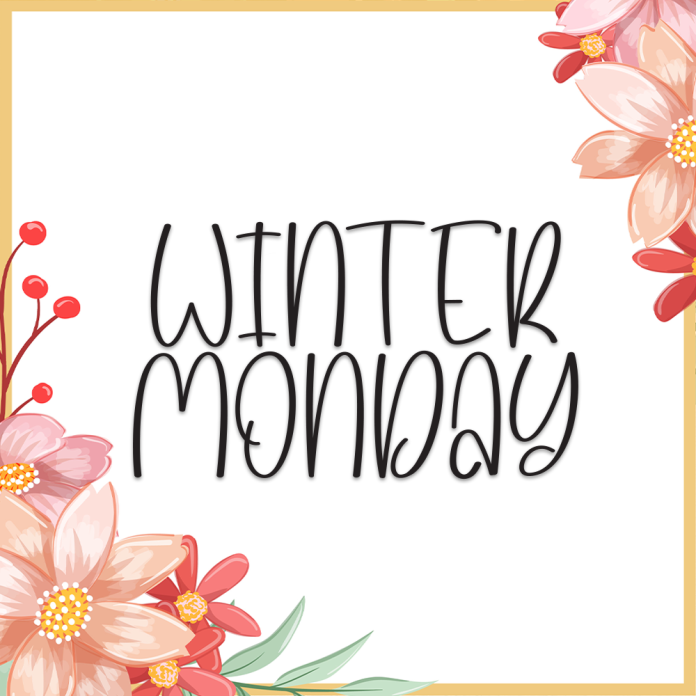
Winter Monday is a charming and cozy display font that captures the essence of winter mornings. Its playful yet elegant letterforms bring a warm touch to seasonal designs, perfect for winter-themed projects.
Stylish display design with a winter vibe
Perfect for holiday cards, seasonal posters, and cozy branding
Unique and eye-catching character shapes
Includes uppercase, lowercase, numbers, and punctuation
Supports multiple languages
Bring the magic of a crisp winter morning into your designs with Winter Monday.